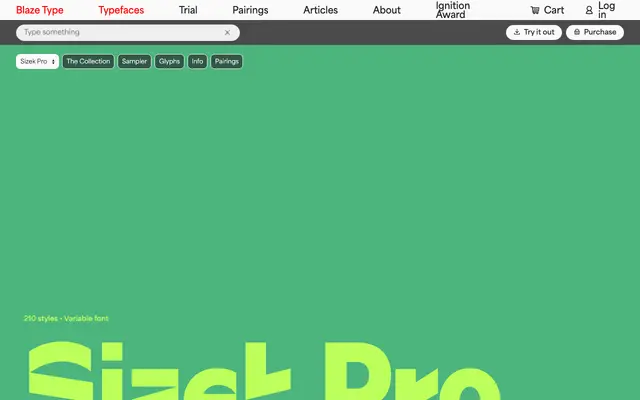
Sizek Pro
A 210-style grotesque spanning seven widths from Compressed to Normal, each carrying ten weights and three slope variants including a super italic.
Sizek Pro is a large grotesque family from Blaze Type built around seven width grades, running from Compressed through to Normal, with each width offering ten weights from Thin to ExtraBold. Every weight ships in upright, italic and a steeper 'Super Italic' cut, bringing the total to 210 styles. The family is also available as a variable font, making it well suited to editorial and branding work that demands tight width control.
A large-scale grotesque sans-serif family spanning seven width variants from Compressed to Normal, each with a full weight range and standard, italic and super italic styles. The inclusion of a 'Super Italic' cut and compressed extremes places it in the expressive grotesque tradition.